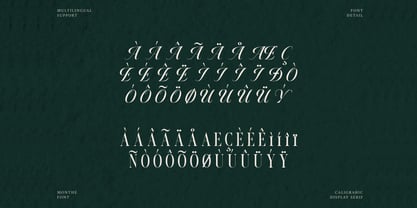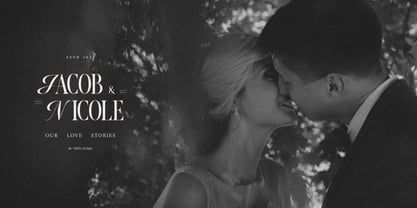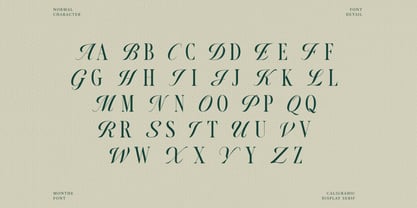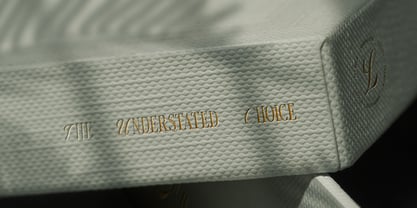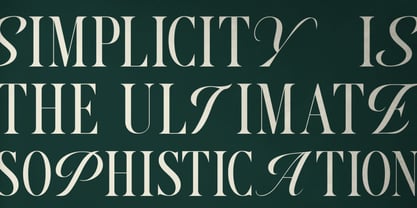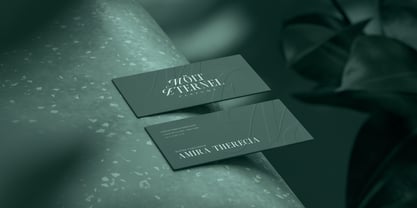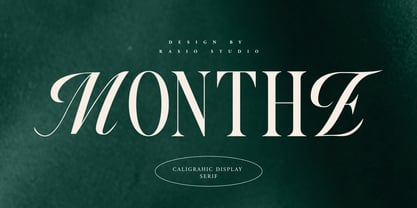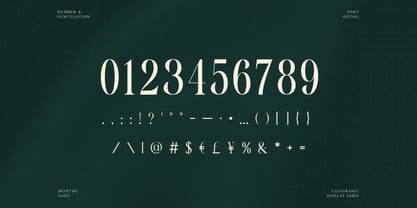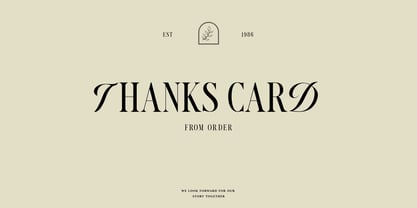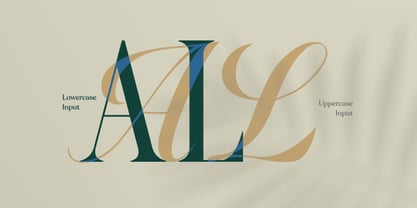
Monthe
by Rasio Studio
The Monthe Font Family was designed by Fajar Indra and published by Rasio Studio. Monthe contains 1 styles. More about this family
Monthe is a refined calligraphic display serif font defined by elegant contrast, artistic curves, and a sense of timeless sophistication. Its sculpted normal characters express a harmonious balance between classic calligraphy and modern editorial style, making every composition feel graceful and luxurious. Designed for aesthetic precision, Monthe delivers distinctive charm in high-end typography and visual identity work. Includes normal character set, numerals, punctuation, and multilingual support. Monthe enhances editorial layouts, branding visuals, and premium packaging with its graceful, statement-making form.
Designers: Fajar Indra
Foundry: Rasio Studio